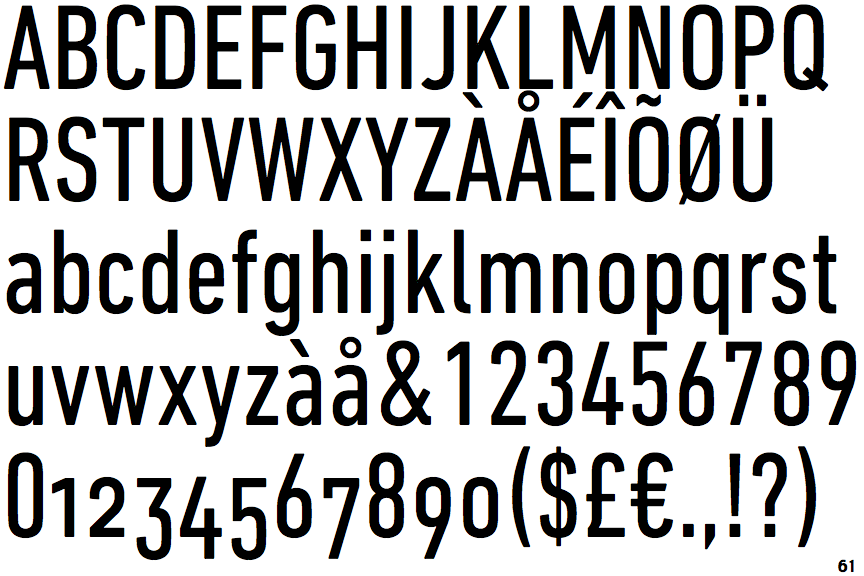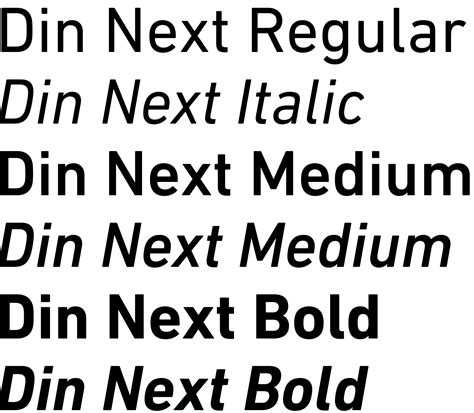
Din Next Font. Din next font is free for. Din has always been the typeface you root for—the one you wanted.
Din next is part of linotype's platinum collection. Web 64pt din next® ultra light italic from 56.99 add to cart din next® light italic from 56.99 add to cart din next® regular from 56.99 add to cart din next® italic from 56.99 add to. Din next contains 28 styles and family package options. Regular, italic, and condensed, bringing the total number of fonts in the din next family to 21. Web download din next font family a geometric fonts, sans serif typeface. Din next font family was designed by akira kobayashi, sandra winter and published by monotype. Web complete family of 27 fonts: Din has always been the typeface you root for—the one you wanted. Linotype has been supplying its. Web each weight ships in three varieties: